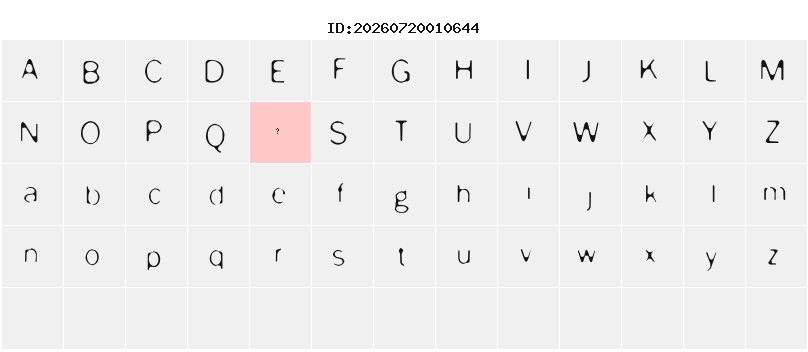
About Enervate.ttf
Enervate.ttf is a modern, elegant sans-serif font designed for ultimate readability and visual harmony. Perfect for branding, headlines, web design, and print materials.